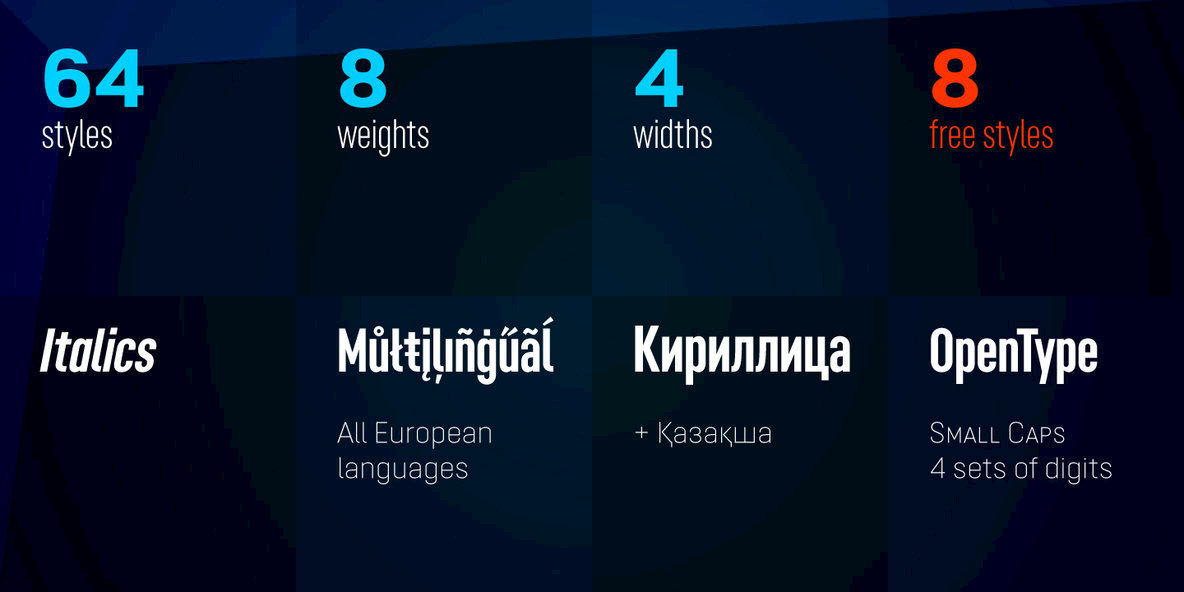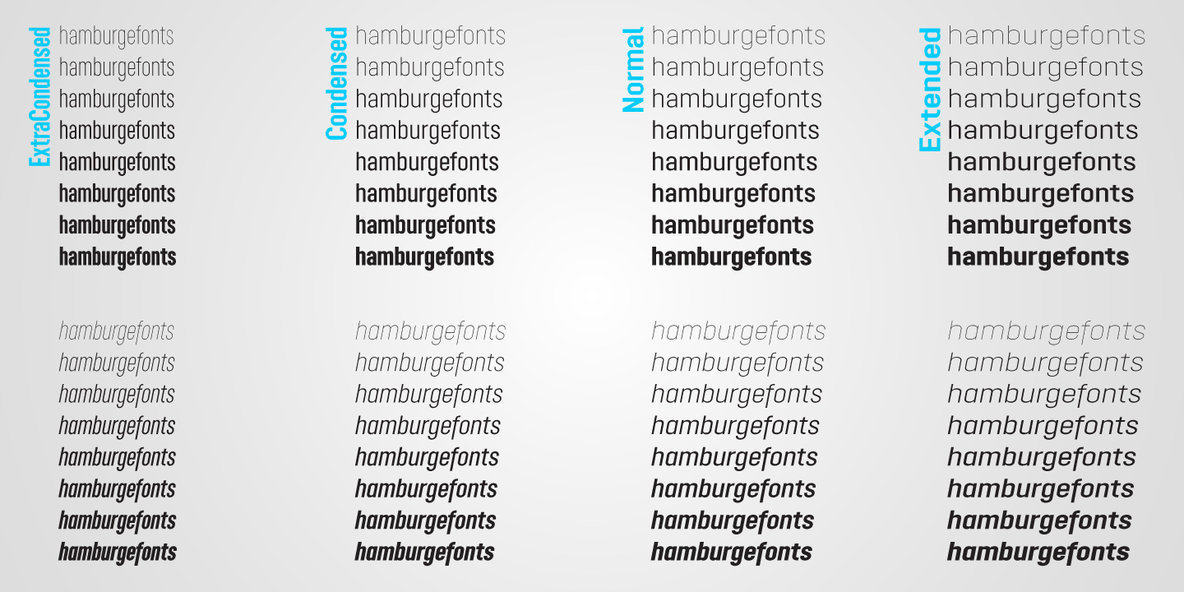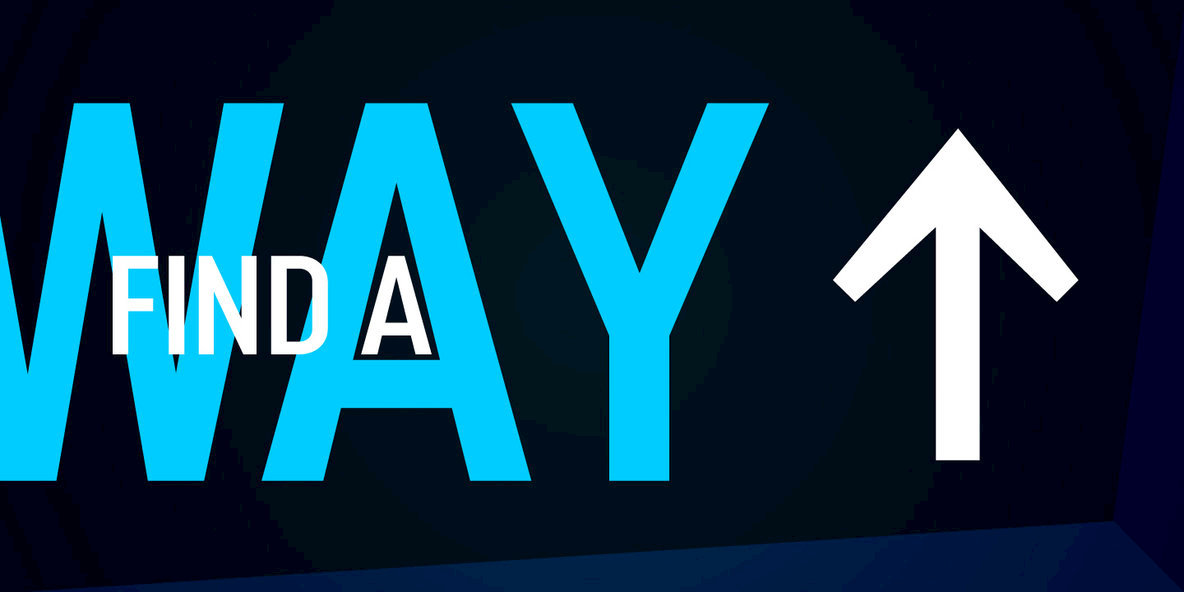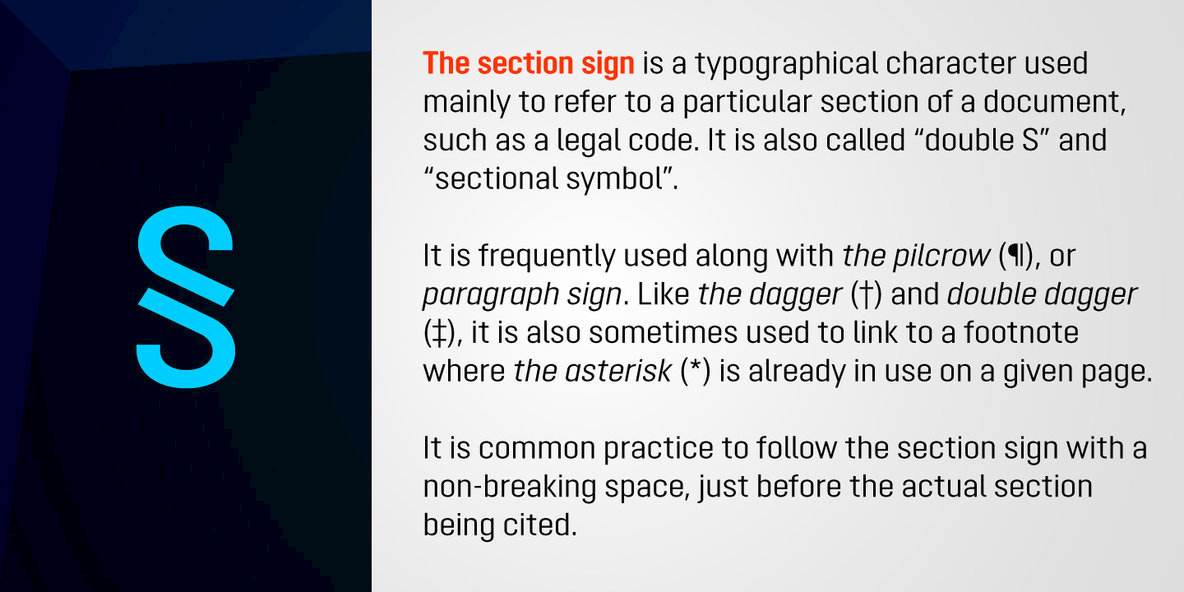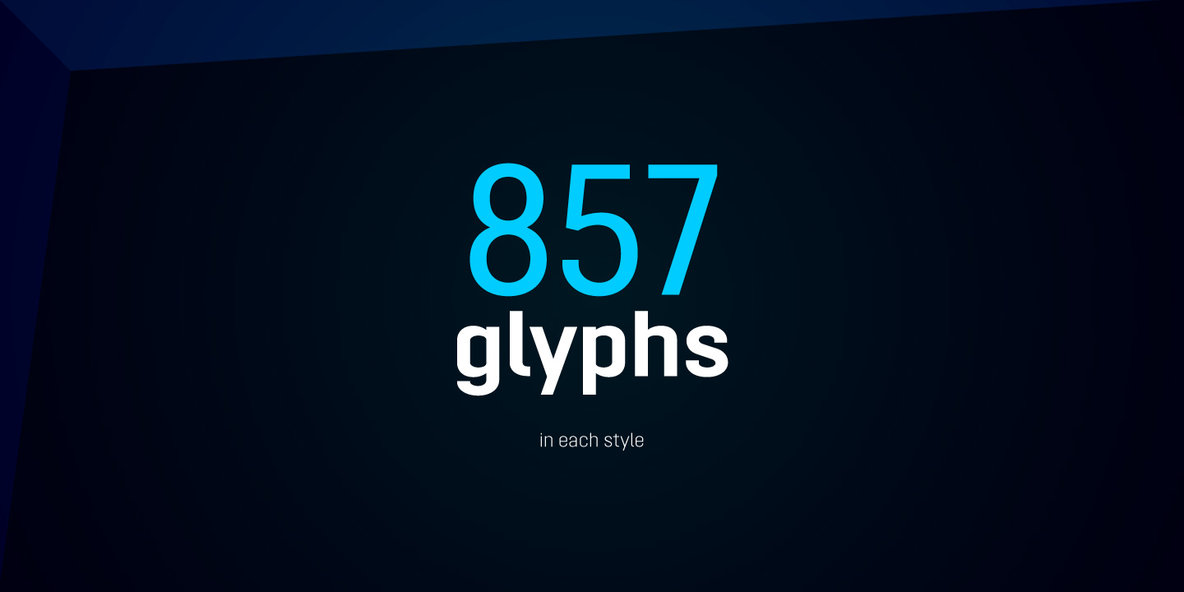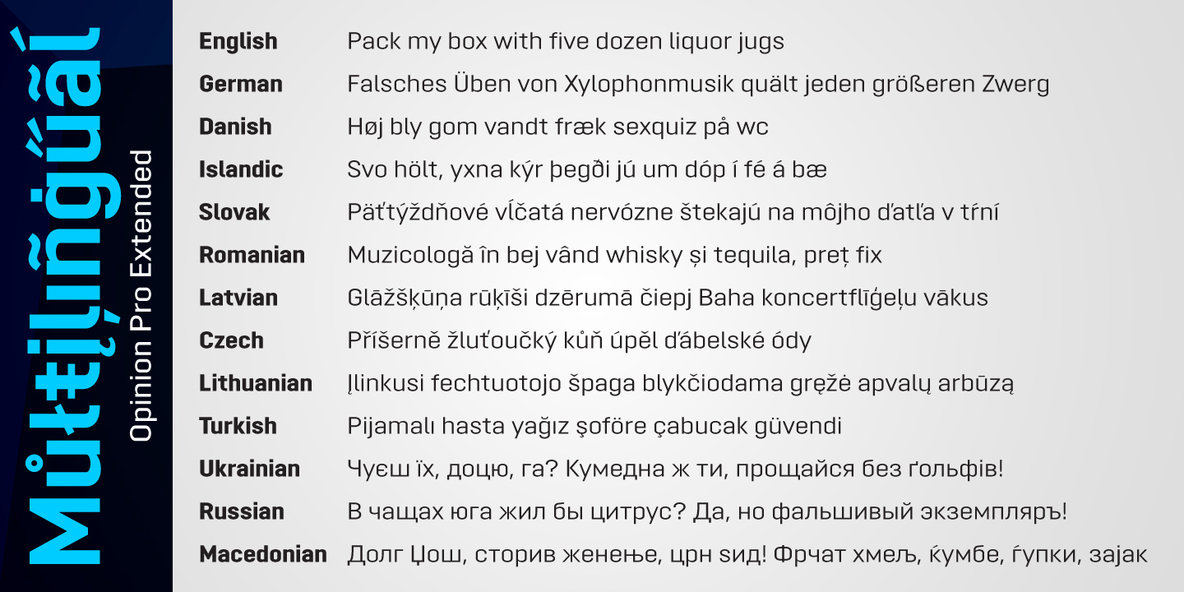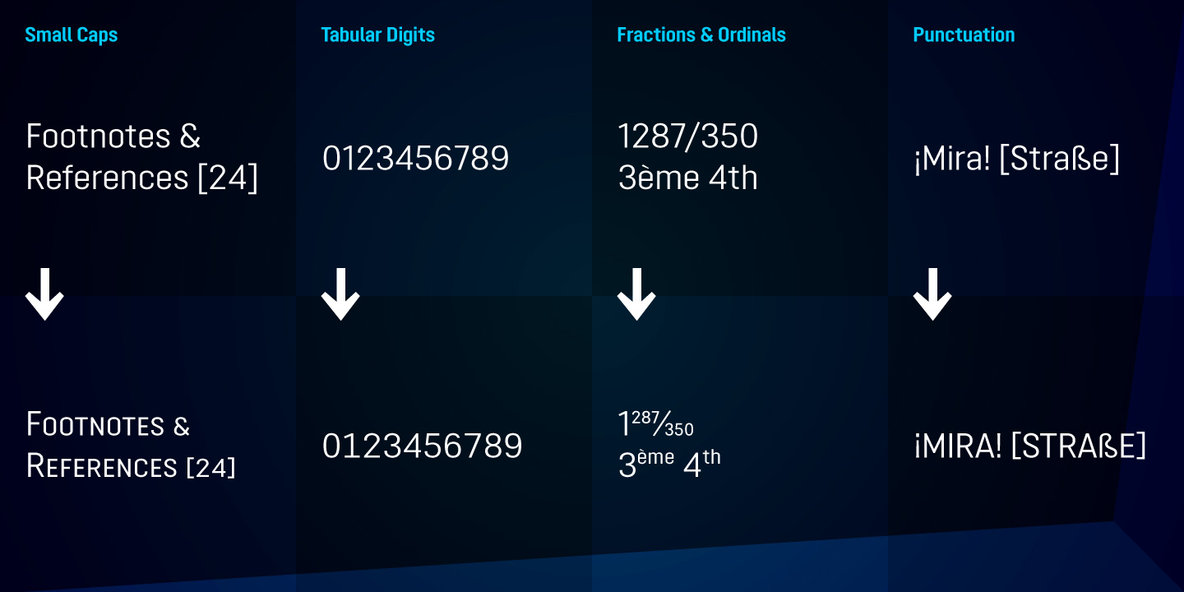
Opinion Pro Extended Font
Opinion Pro is a geometric sans-serif typeface with extra-large x-height that comes in 64 styles. It is composed of 4 width variations, each in 8 weights with respective italics. Its rigid curves with pronounced vertical stems makes it useful as both display and paragraph typefaces. Also it works particularly well as a typeface for technical applications such as wayfinding or labeling of any kind.
Opinion Pro features a wide range of supported languages, including all Latin-based European languages, main Cyrillic languages, plus Kazakh. The OpenType features include, among others, 4 sets of digits, small-caps, ordinals.